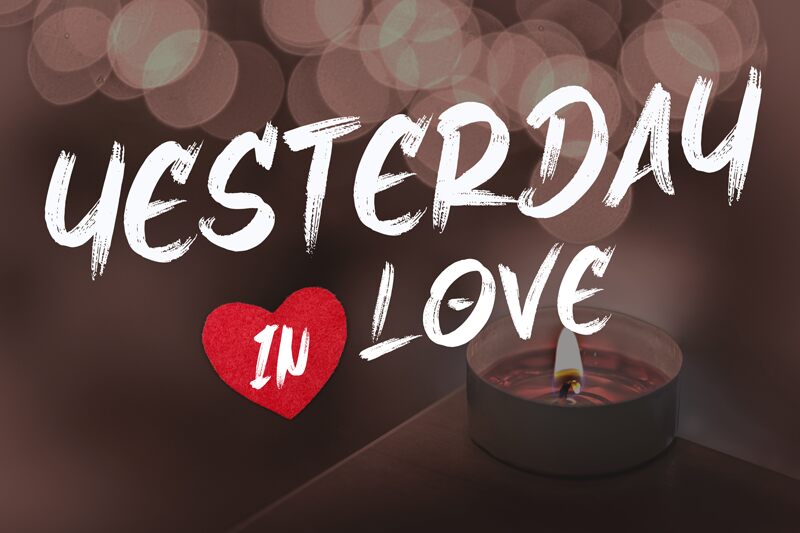
Havoc Rage font by Tigadestd is a free brush font that hits like a streak of black paint across a wall. Its rough, scratchy strokes and forward-slanting letters feel like they were dragged with a dry, fraying brush, leaving sharp edges and splatters that radiate motion and attitude. The texture is raw and gritty, giving every word a sense of noise, speed, and barely contained chaos.
Using Havoc Rage, this free font, works brilliantly for extreme sports posters, rock or metal album covers, horror titles, streetwear branding, gaming graphics, and bold social media promos. Its aggressive rhythm and tight spacing punch through busy backgrounds and dark imagery. For balance, pair Havoc Rage with a clean, neutral sans serif in smaller text, and let this brush typeface take over the main headline at large sizes.